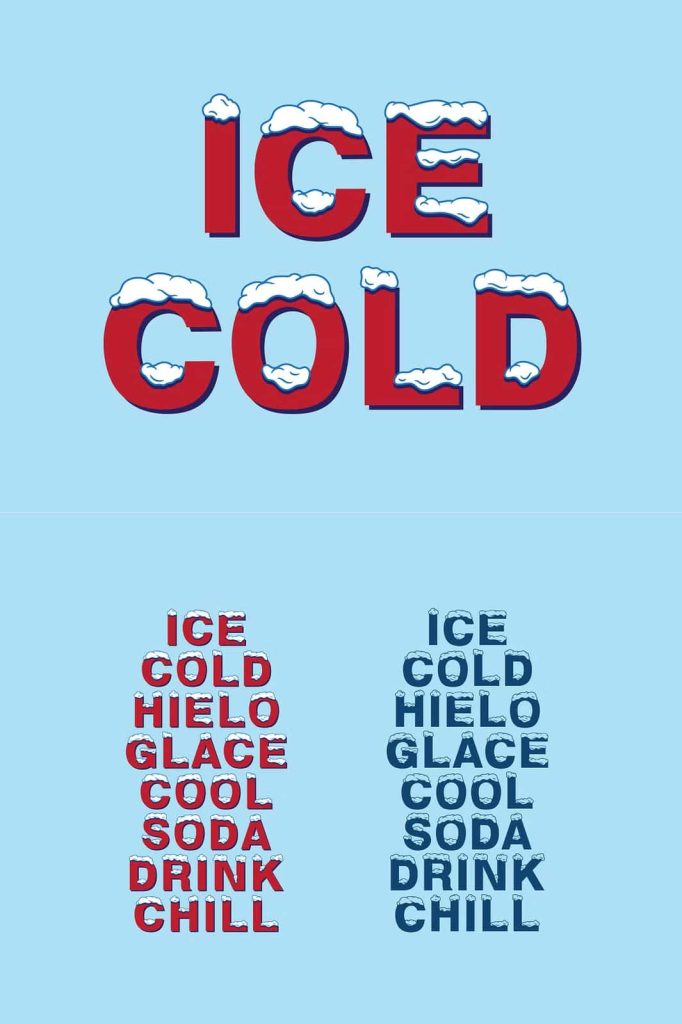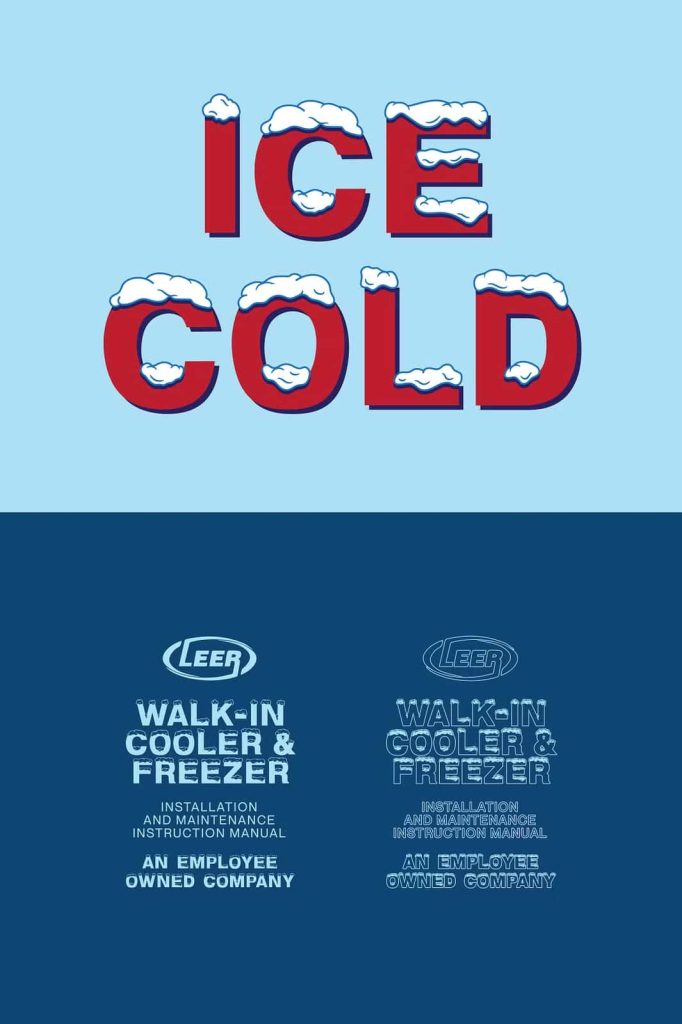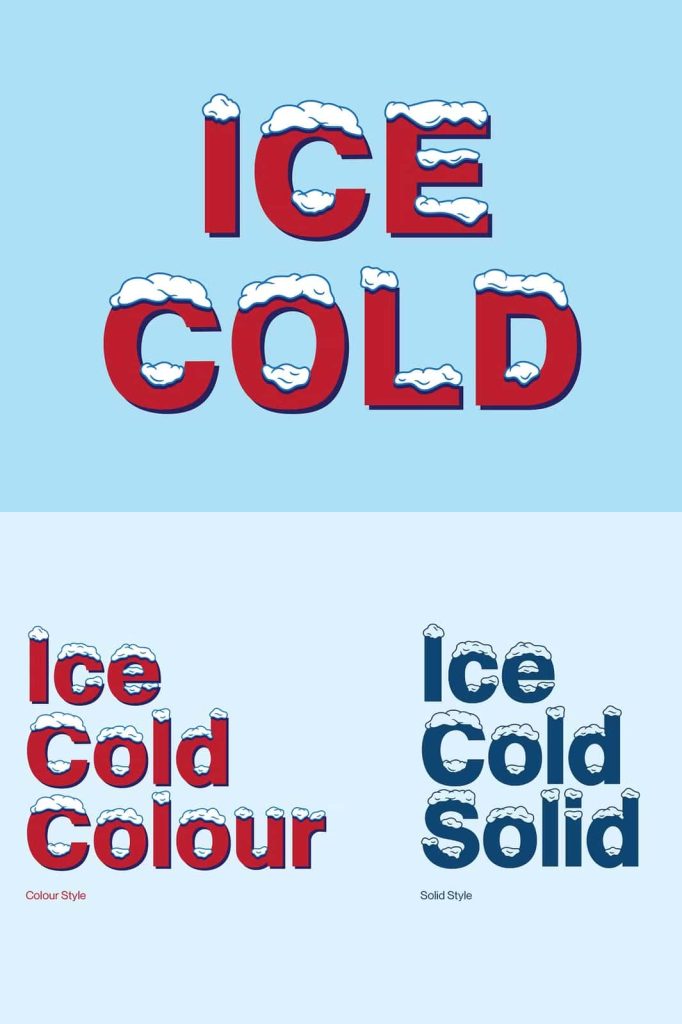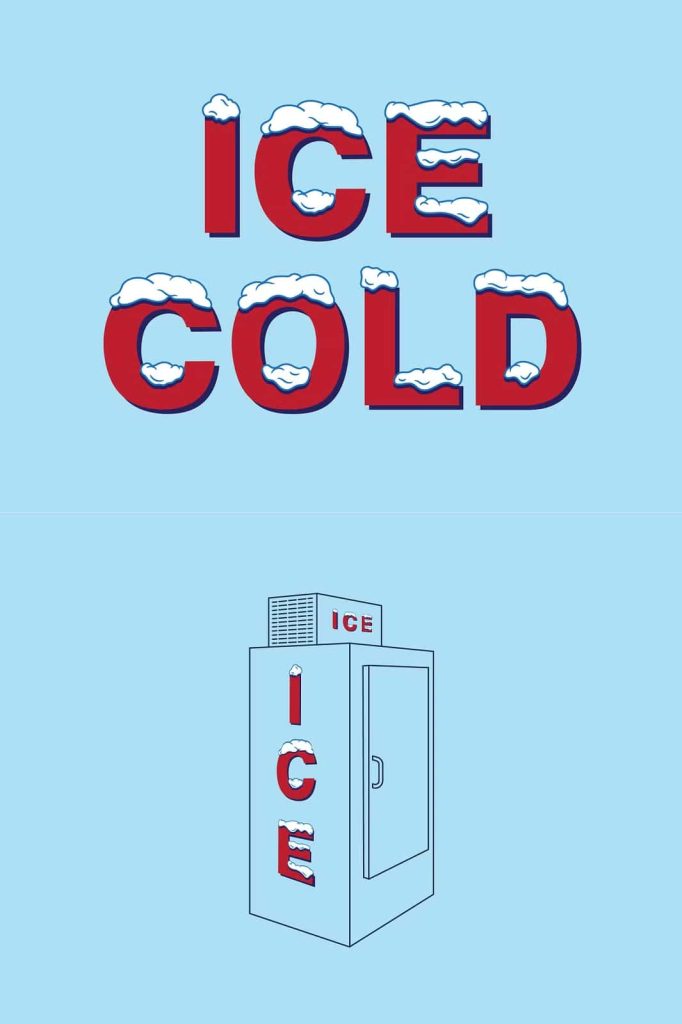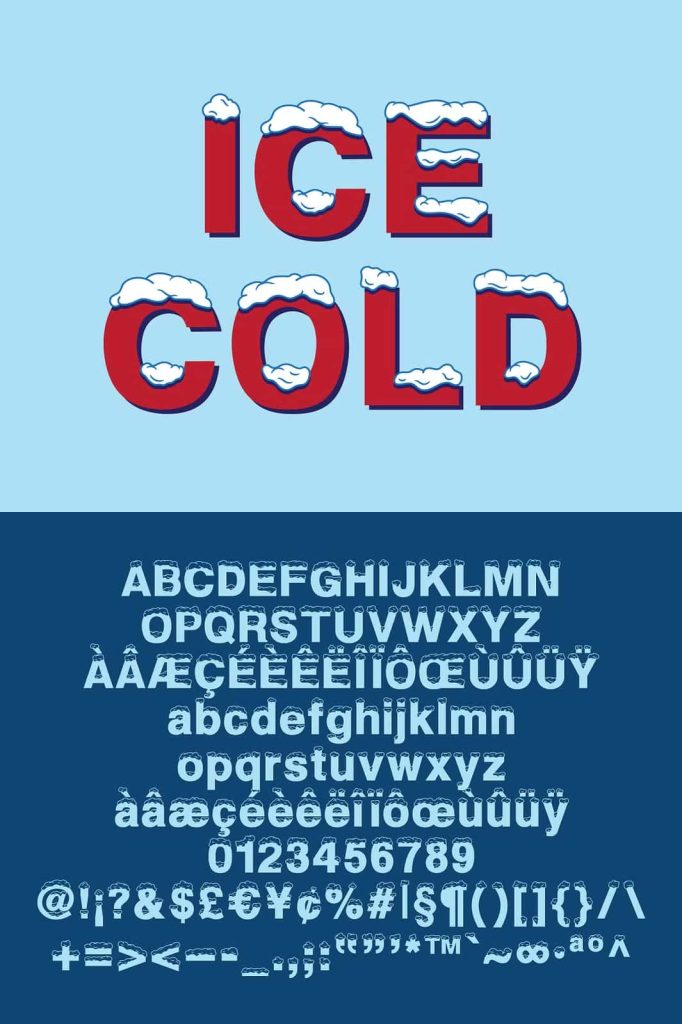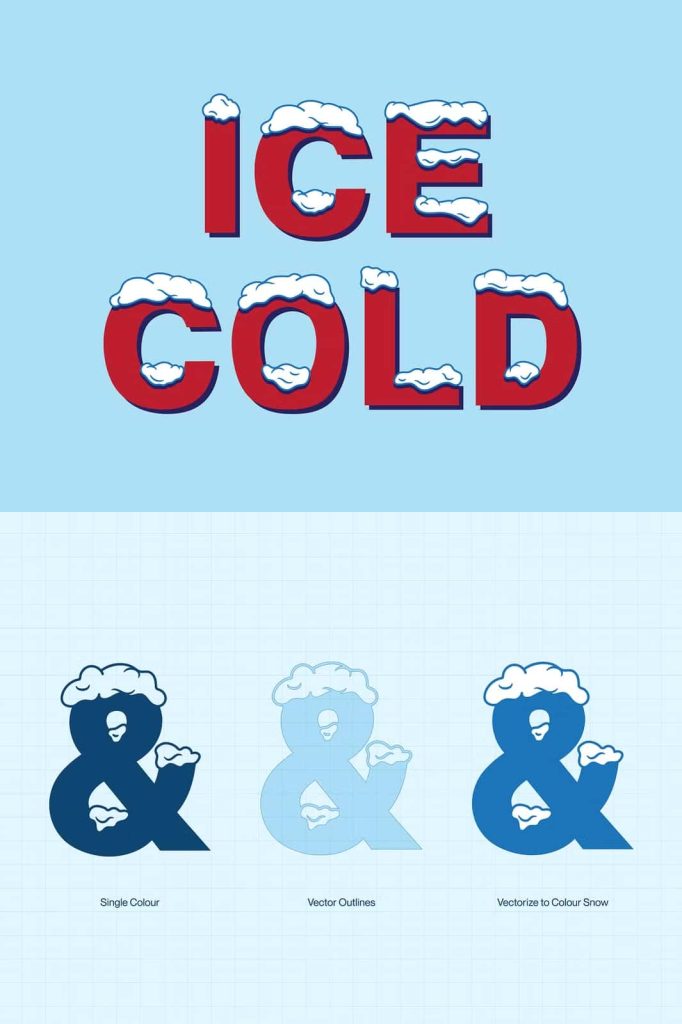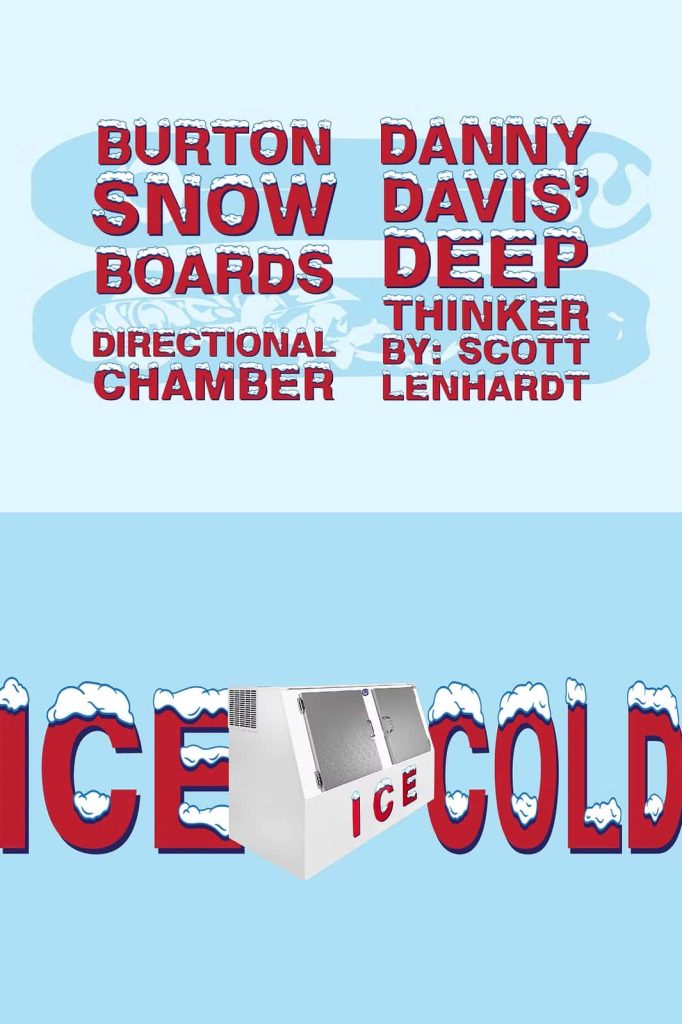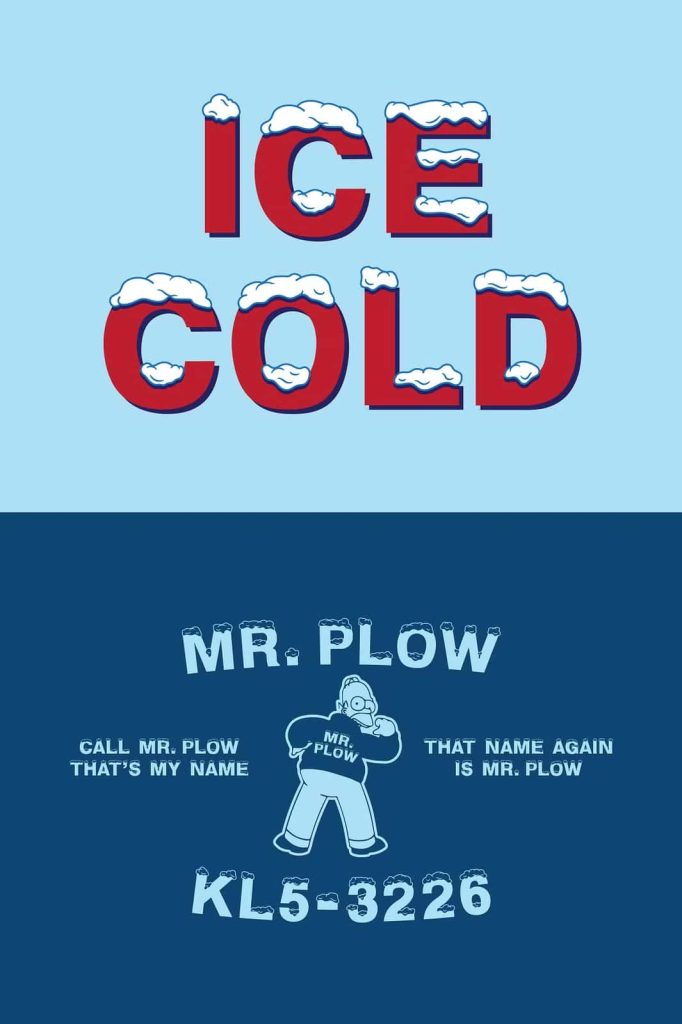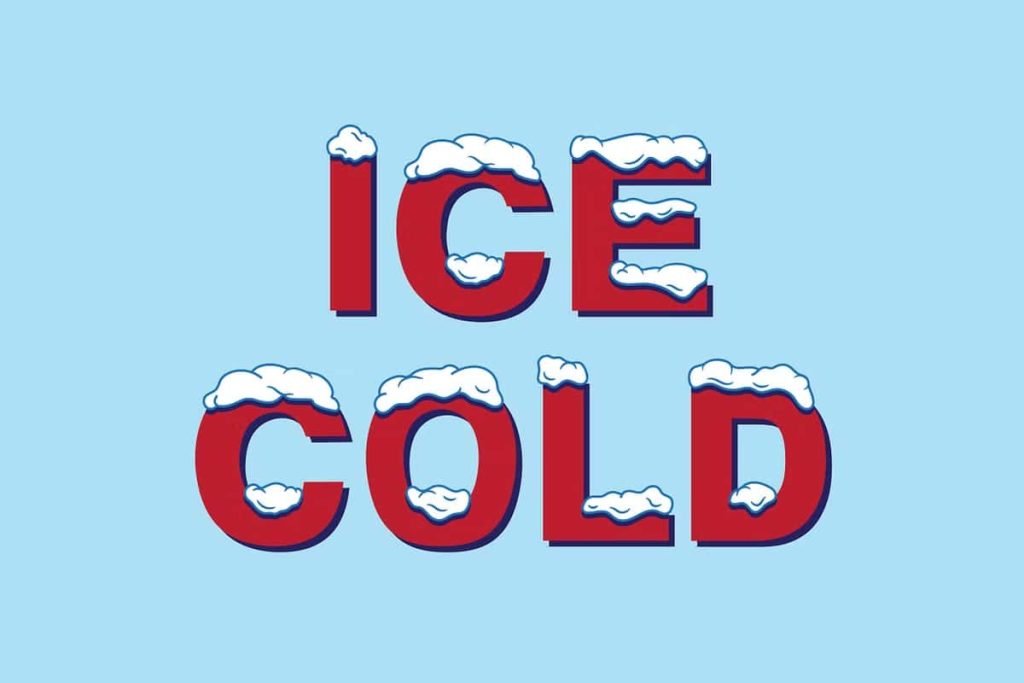
Ice Cold Typeface
Ice Cold Typeface delivers striking versatility in every carefully crafted stroke. Designed to capture the beauty of winter and the charm of vintage typography, this typeface transforms ordinary text into bold, atmospheric statements. Whether you choose the vibrant full color version or the refined solid style, Ice Cold elevates your creative work with a distinct seasonal character and timeless appeal.
This font invites you into a frosty design world where retro aesthetics meet modern precision. It blends handcrafted artistry with structured letterforms, creating a balanced visual experience that feels expressive yet controlled. Ice Cold Typeface empowers designers to produce captivating layouts that stand out across print and digital platforms.
Two Distinct Styles for Maximum Impact
Ice Cold Typeface gives you creative freedom with two dynamic styles. The full color version adds depth, texture, and a layered winter effect that instantly draws attention. It works beautifully for bold headlines, posters, packaging, and social media graphics where visual drama matters.
The solid style offers a cleaner, more adaptable look. It preserves the core character of the design while allowing you to customize colors and effects to suit your project. This flexibility makes Ice Cold suitable for branding systems, editorial layouts, merchandise, and digital content.
Full Color for Eye-Catching Designs
The full color option amplifies the icy aesthetic with built-in visual detail. It saves time during production while maintaining a polished appearance. Designers can quickly apply it to winter campaigns, holiday promotions, event flyers, and seasonal branding projects without sacrificing originality.
This version commands attention and creates instant visual interest. Use it when you want your message to feel bold, festive, and unforgettable.
Solid Style for Creative Control
The solid version gives you full creative control. Adjust colors, apply textures, or combine it with gradients and overlays to match your brand identity. Its adaptable structure supports both minimalist layouts and highly decorative compositions.
This flexibility ensures Ice Cold Typeface remains relevant beyond seasonal use. You can integrate it into diverse themes while maintaining its vintage-inspired personality.
Vintage Influence with Modern Precision
Ice Cold Typeface builds on a handmade foundation influenced by the iconic structure of Helvetica, reimagined with a playful twist often affectionately called “Howlvetica.” This influence brings balance and readability to the design while preserving its expressive charm.
The result is a font that feels nostalgic yet contemporary. It carries the warmth of handcrafted lettering while maintaining the clean geometry that modern design demands. This combination allows you to create layouts that feel both authentic and professional.
Handmade Character and Authentic Detail
Each letterform reflects intentional craftsmanship. Subtle variations and thoughtful detailing add personality without overwhelming the composition. This handmade quality enhances the vintage atmosphere and strengthens the overall aesthetic impact.
Designers who value originality will appreciate how Ice Cold Typeface stands apart from generic seasonal fonts. It communicates effort, creativity, and distinctive style.
Ideal for Branding, Posters, and Seasonal Campaigns
Ice Cold Typeface adapts effortlessly to multiple design environments. Use it to create bold branding elements for winter collections, craft beverage labels, apparel graphics, and specialty packaging. Its decorative nature enhances promotional materials and builds strong visual identity.
In poster design, Ice Cold commands attention with confident letterforms and dramatic presence. It performs exceptionally well in event marketing, holiday announcements, and themed campaigns. The font’s versatility ensures consistent quality across both large-scale prints and smaller digital screens.
Growing Character Set for Expanding Creativity
As demand continues to grow, Ice Cold Typeface evolves. The character set expands to support more languages, symbols, and creative needs. This ongoing development reflects a commitment to providing designers with a comprehensive and reliable tool.
With each update, Ice Cold strengthens its versatility and global usability. Designers can confidently integrate it into international branding projects and diverse creative applications.
Why Choose Ice Cold Typeface?
• Available in full color and solid styles
• Blends vintage winter aesthetics with modern structure
• Inspired by classic typographic foundations
• Perfect for branding, posters, packaging, and seasonal campaigns
• Continuously expanding character set for greater flexibility
Ice Cold Typeface merges the magic of vintage winter design with the precision of contemporary typography. It gives you the tools to create bold, memorable visuals that capture attention and communicate personality. Step into the frosty elegance of Ice Cold and craft designs that feel timeless, expressive, and confidently modern.